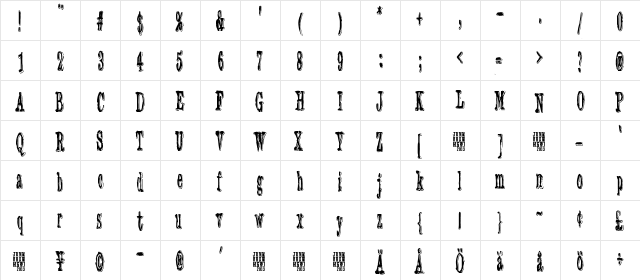
3 Times Recycled Old Newspaper Regular
Designerjunkohanhero
Design Context for 3 Times Recycled Old Newspaper Typeface
3 Times Recycled Old Newspaper takes a measured approach to typography — its balanced proportions and neutral character make it a reliable workhorse for both digital and print work.
Dating back to 2015, this typeface is available in OpenType (OTF) format.